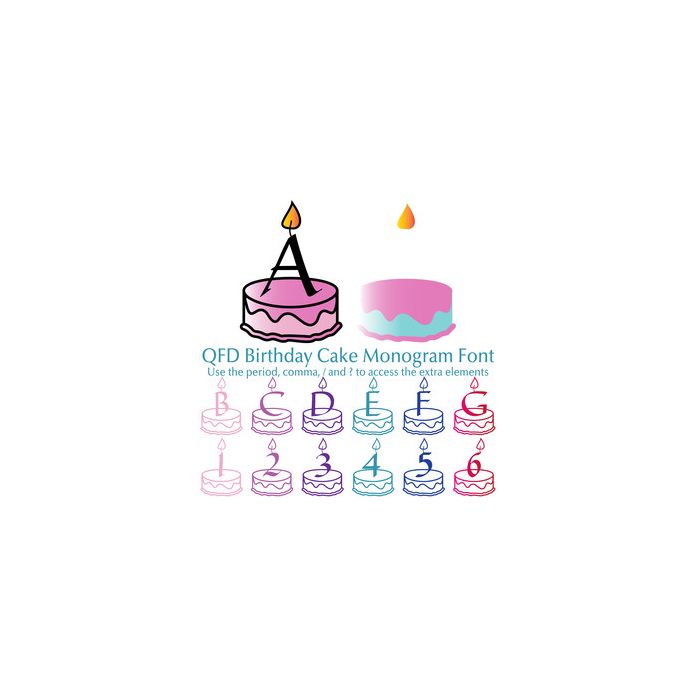
Perfect for birthday celebrations! Perfect for cards, wall art, t-shirts, mugs and anything else you can think of. Use the period, comma, / and ? to access the extra elements. See our detailed monograms tutorial by clicking the Instructions button.